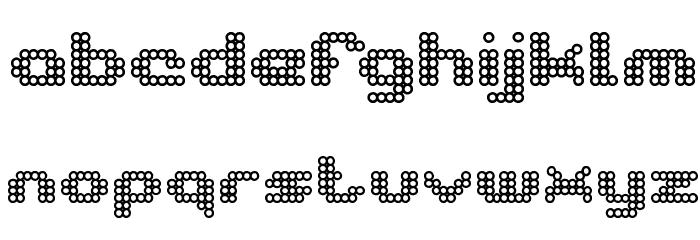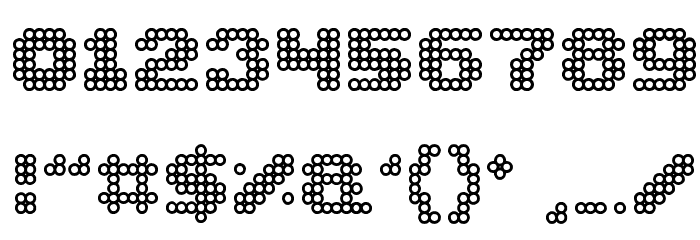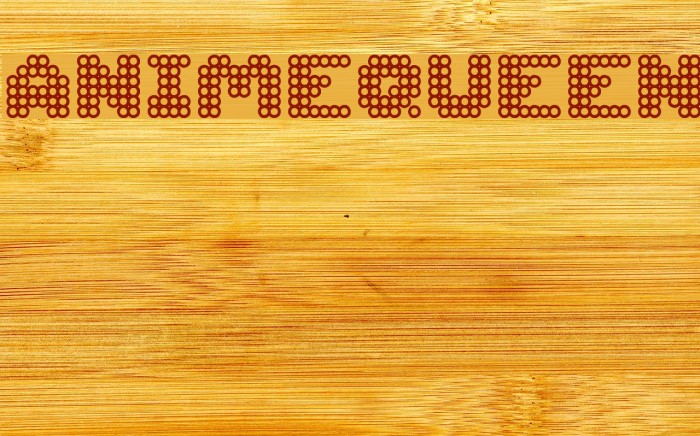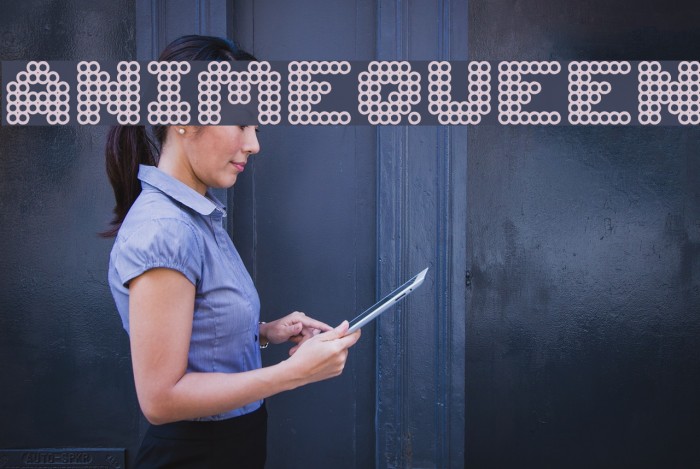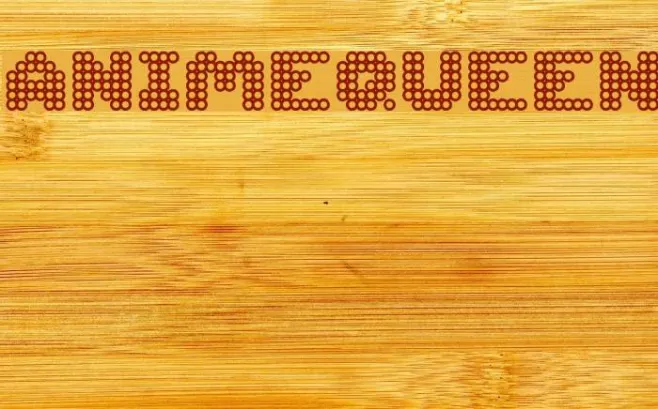
ANIMEQUEEN Font
This font features a unique and playful design composed of small circular dots forming each character. The letters and numbers are structured in a grid-like pattern, giving a pixelated appearance reminiscent of retro digital displays or LED signage. The uniformity of the dots creates a cohesive look across all characters, while the rounded edges add a friendly and approachable feel. This font stands out with its decorative style, making it ideal for creative projects that require a distinctive and eye-catching typeface.
A playful, dot-based decorative font with a pixelated, retro digital style.
- Proposed Projects: Ideal for digital art, retro-themed designs, children's projects, posters, and creative branding.
- Use Case: Logos, Posters, Creative Branding